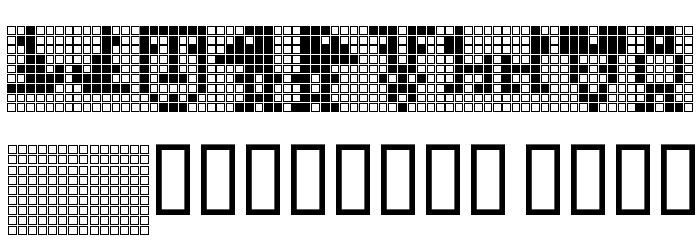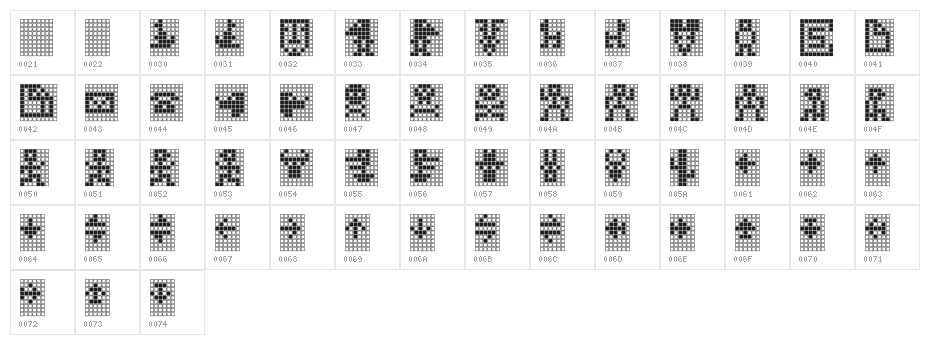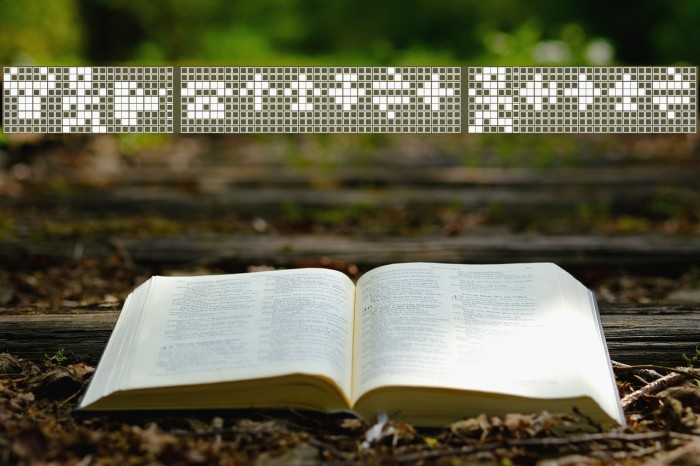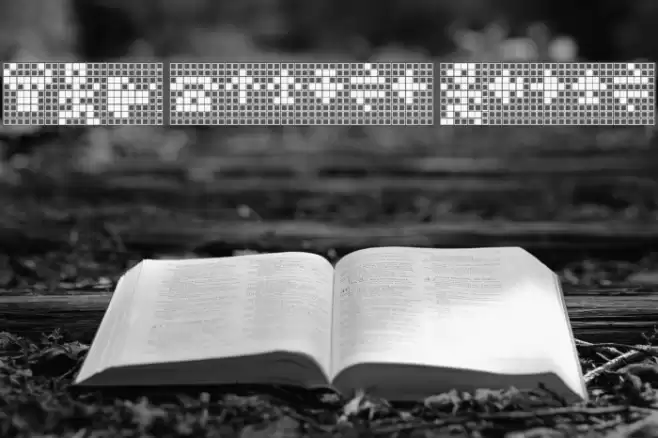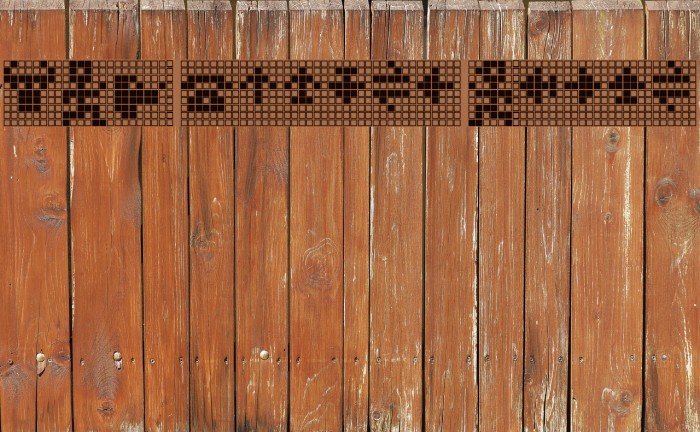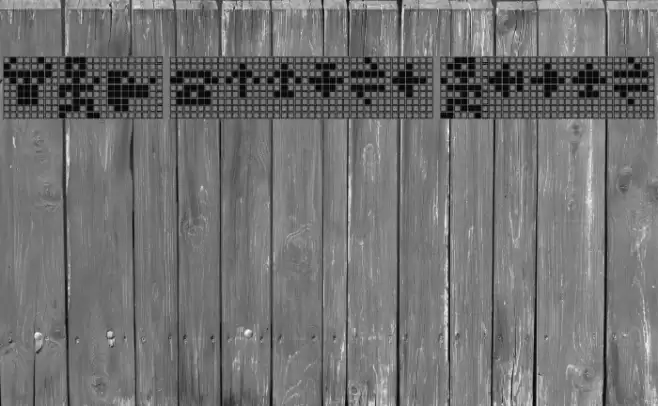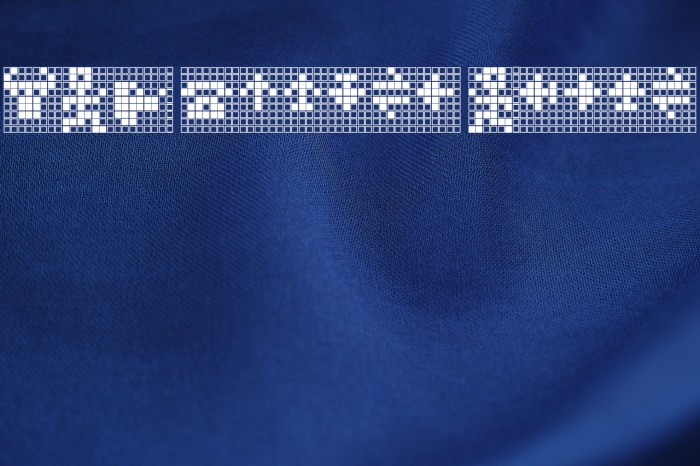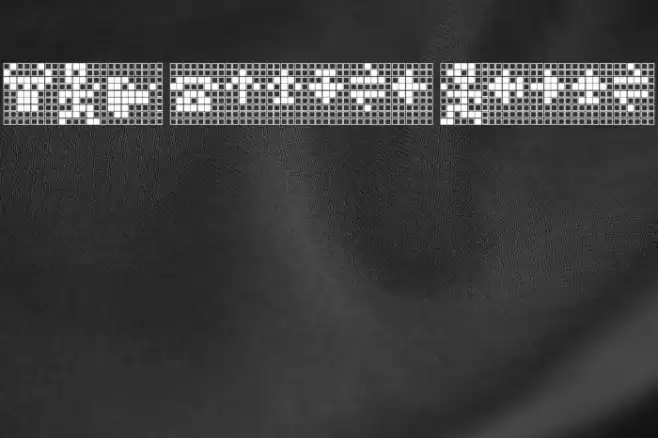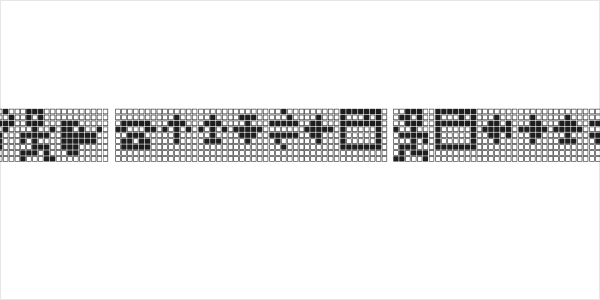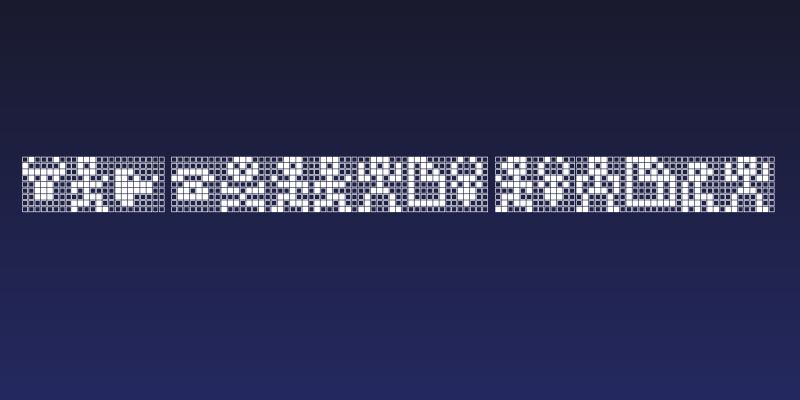
TPF Display Symbol Font
TPF Display Symbol Description
This font features a highly stylized, pixelated design reminiscent of early digital displays or retro video games. Each character is composed of a grid of squares, creating a blocky and geometric appearance. The uniformity in the grid structure gives it a distinct, mechanical feel. The characters are easily distinguishable, with clear separations between each letter and symbol. This design is particularly effective for creating a nostalgic or tech-inspired aesthetic. The font's unique style makes it stand out, capturing attention with its bold and unconventional look.
| Proposed Projects | Ideal for retro-themed video games, digital art projects, tech-inspired branding, or any design requiring a nostalgic digital look. |